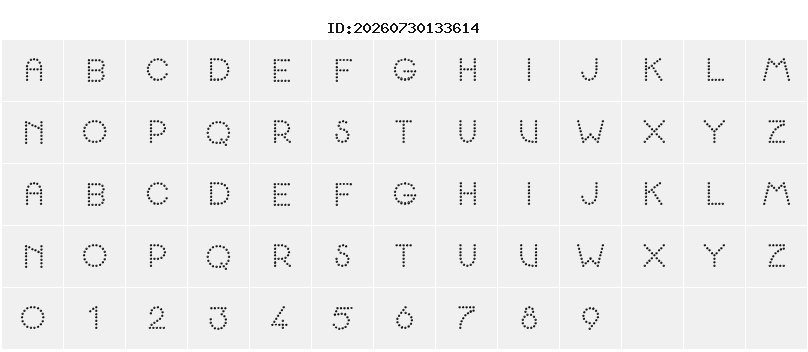
• Font Name: K22 Spotty Face
• Full Font Name: K22 Spotty Face
• Designer: Tony Huggett, Toto
• Manufacturer: Toto
• Description: Based on the dry transfer font Spotty Face by Tony Huggett from Zipatone Designer Fonts. Toto Kyusi, Pilipinas toto@ispx.com.ph + to22to@gmail.com February 18, 2012 June 28, 2012: Added the Basic Russian Alphabet (Cyrillic) at the request of Maria S.
K22 Spotty Face.otf is a modern, elegant sans-serif font designed for ultimate readability and visual harmony. Perfect for branding, headlines, web design, and print materials.